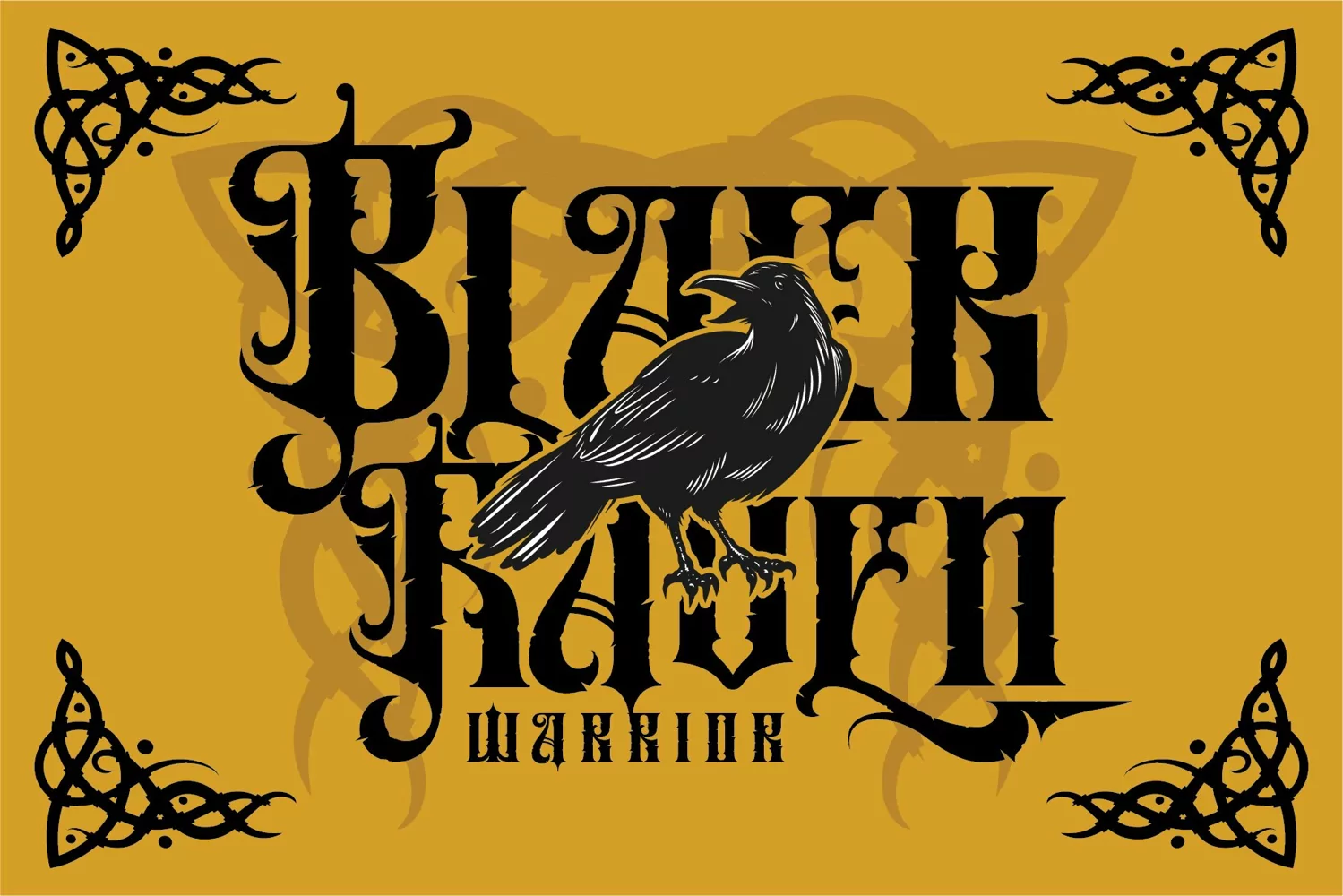
Eastern Shines - Blackletter Font
If you looking for strong font for display or title this item is a great choice to make your design authentic.
Eastern Shines font has 197 character glyphs included the multilingual and alternate glyphs, the alternate glyphs will make your design more decorative.